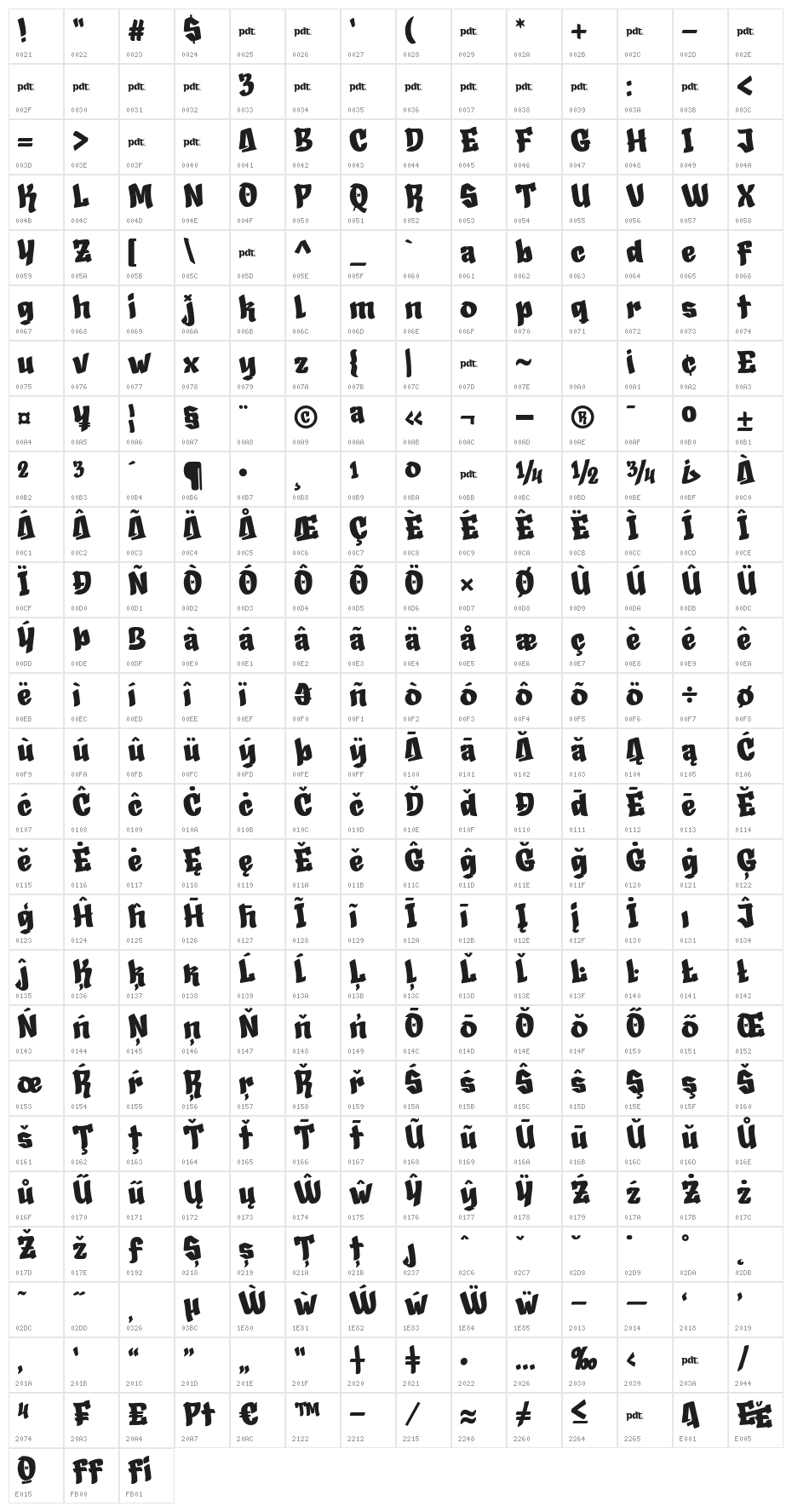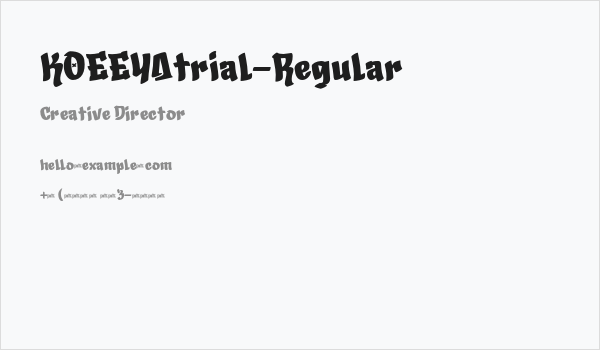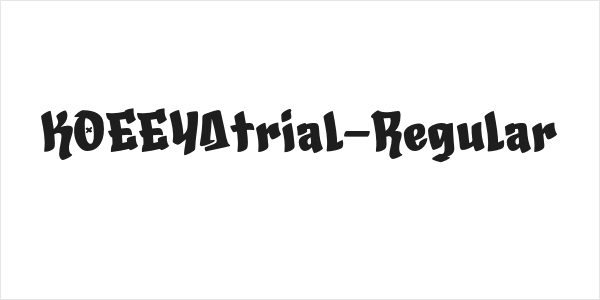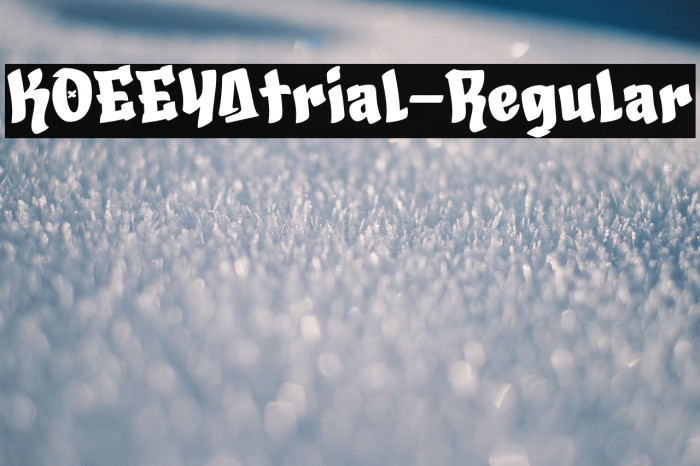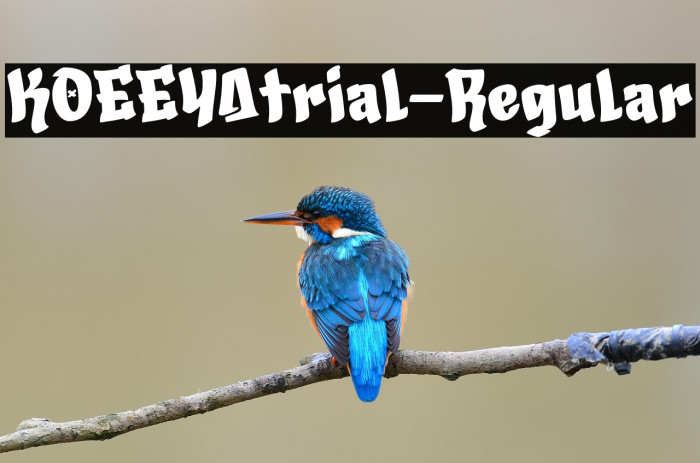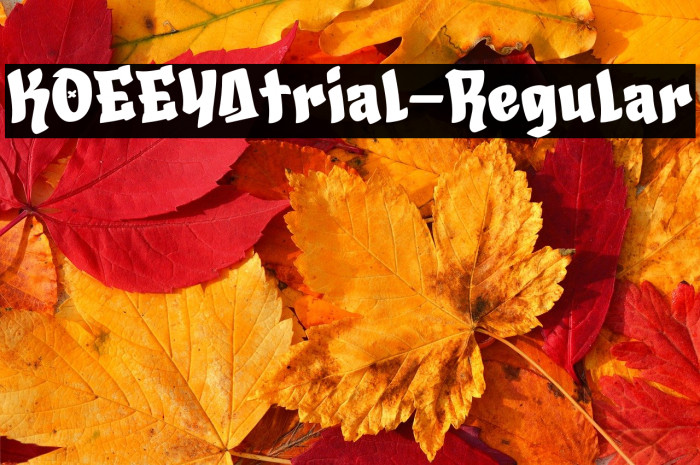
KOEEYAtrial-Regular Font
KOEEYAtrial-Regular Description
This font features a bold and dynamic style with a strong presence. The characters are designed with a distinct flair, incorporating sharp angles and unique curves that give it a striking appearance. The uppercase letters are particularly bold, while the lowercase letters maintain a consistent style, ensuring readability. The numbers and special characters are crafted to match the overall aesthetic, making it suitable for eye-catching designs. The font's playful yet assertive nature makes it ideal for projects that require a bold statement.
| Font Family | KOEEYA trial |
| Proposed Projects | Ideal for posters, logos, branding, and any design requiring a bold statement. |